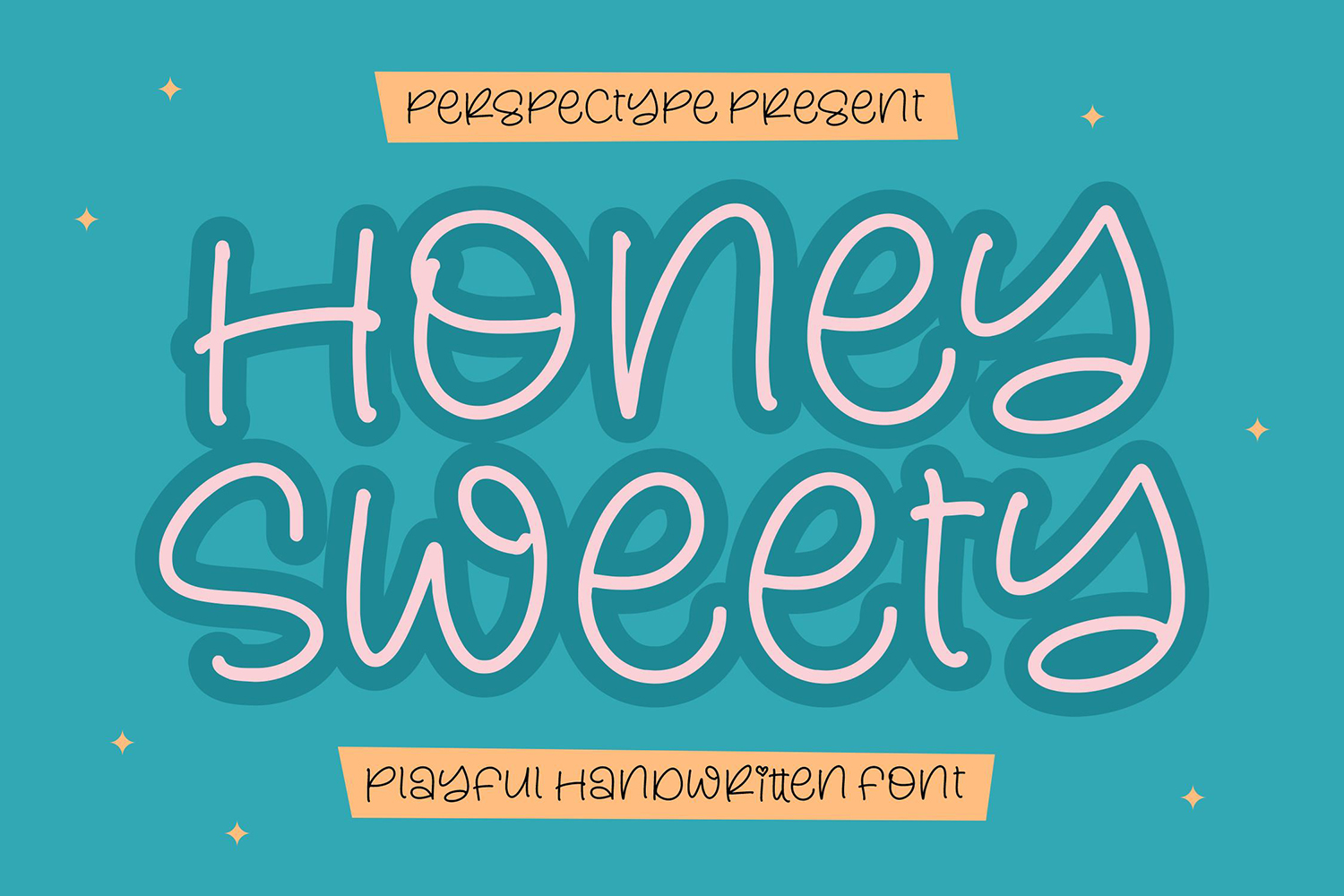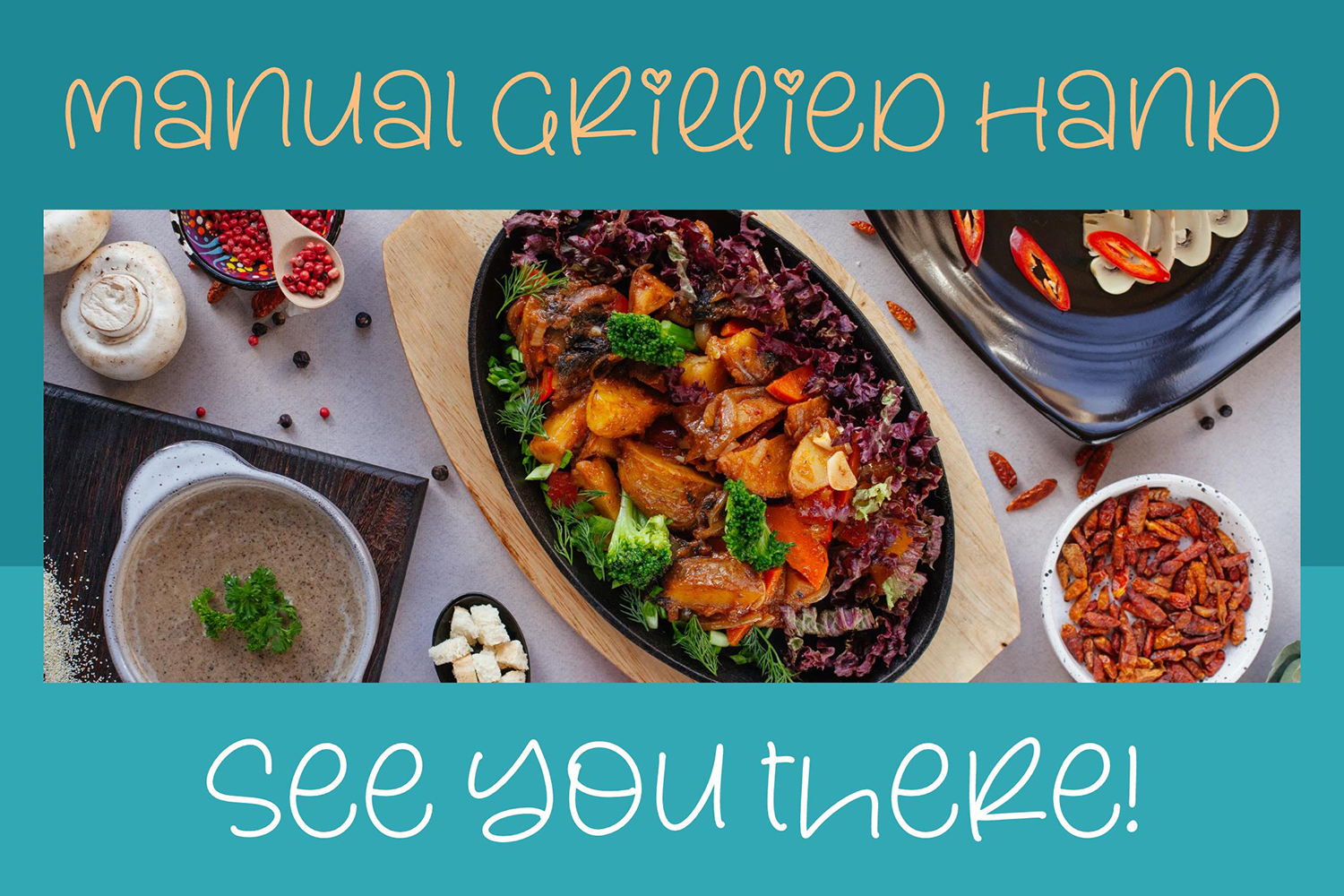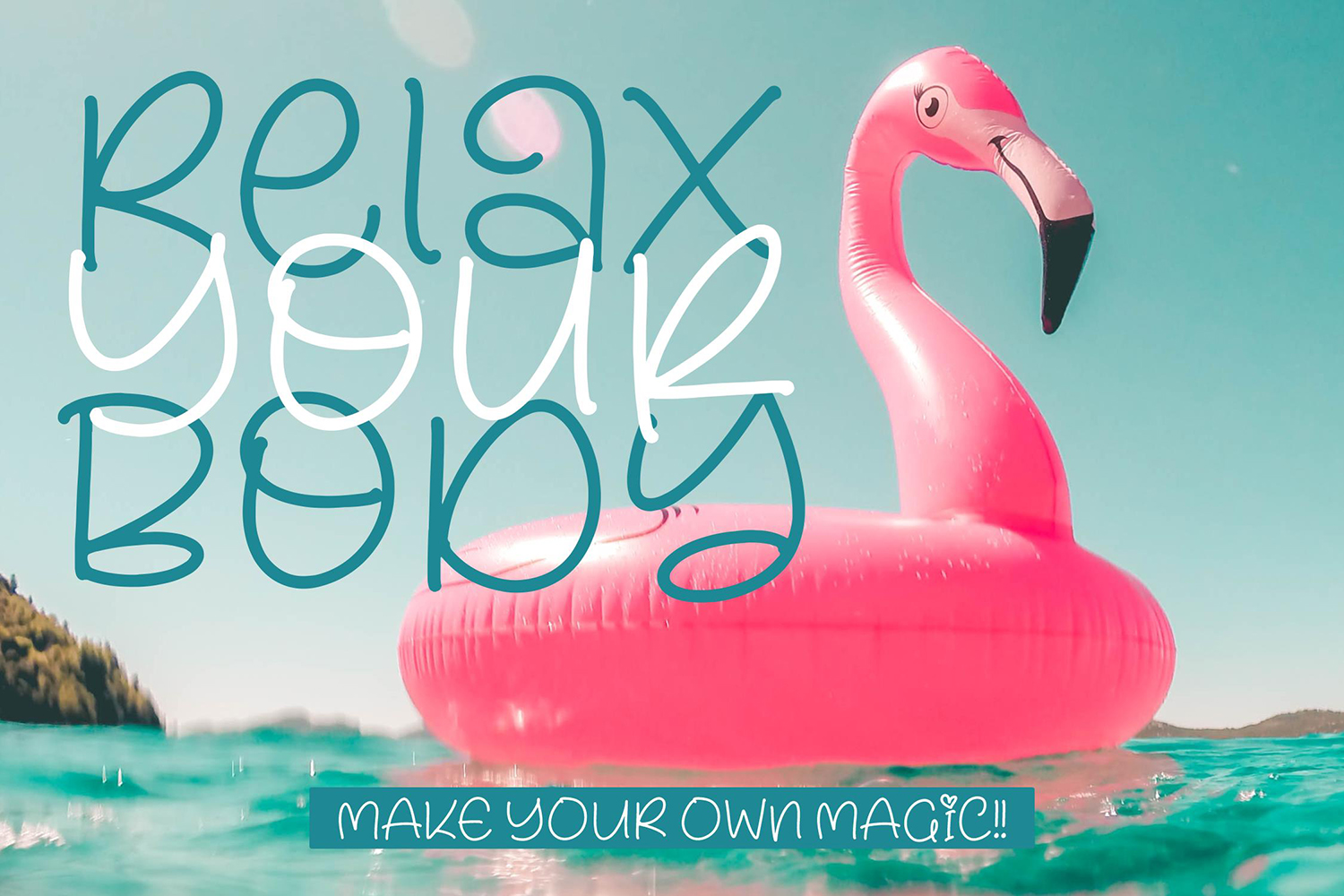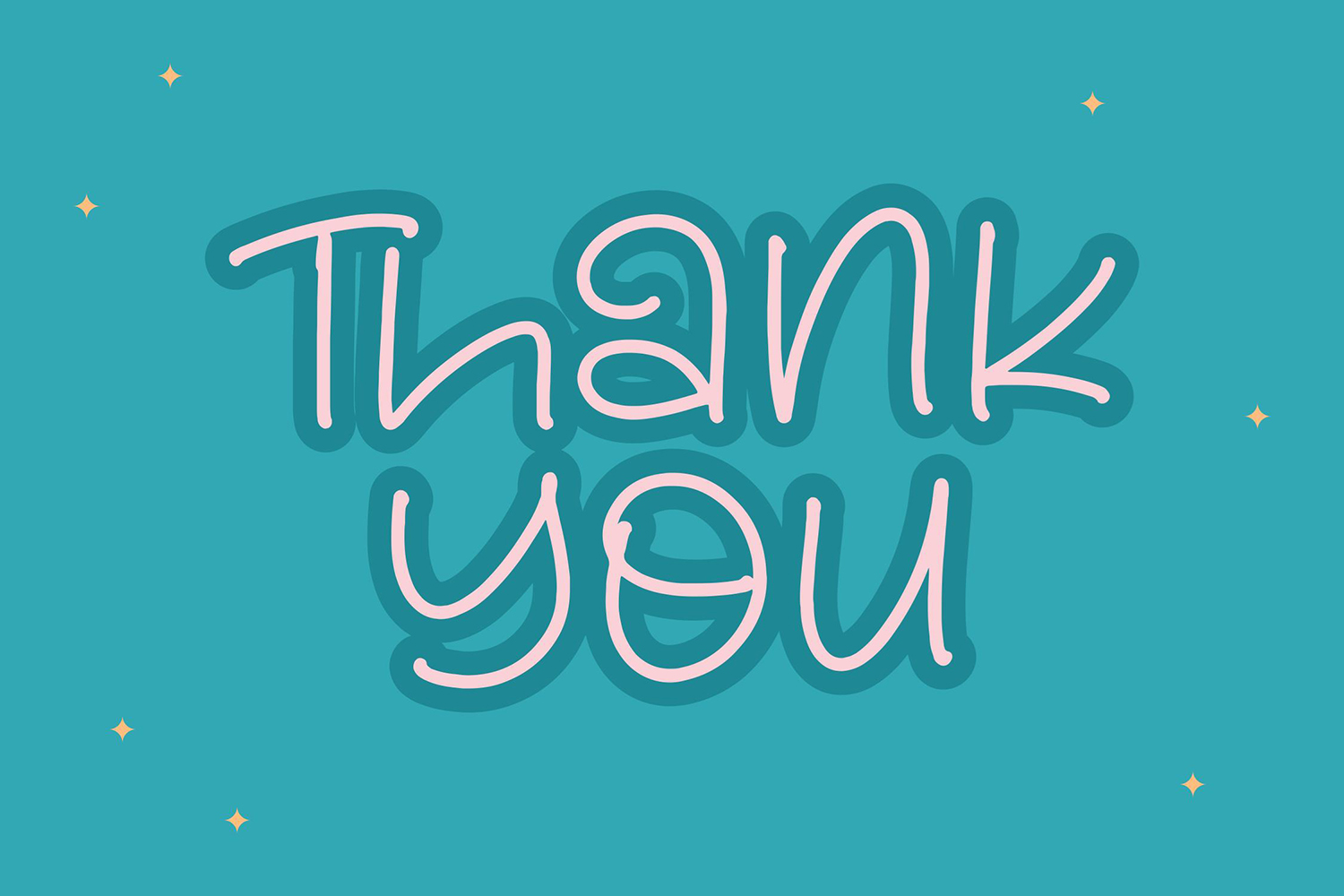
Honey Sweety Free Font
Honey Sweety Free Font is a playful handwritten font perfect for logos, branding projects, homeware designs, product packaging, mugs, quotes, posters, shopping bags, T-shirts, book covers, name cards, invitation cards, greeting cards, labels, photography, watermark, special events, and all your other lovely projects that need a beautiful script taste. This free typeface was designed by a talented Perspectype Studio. If you like it don’t forget to check out the full version.